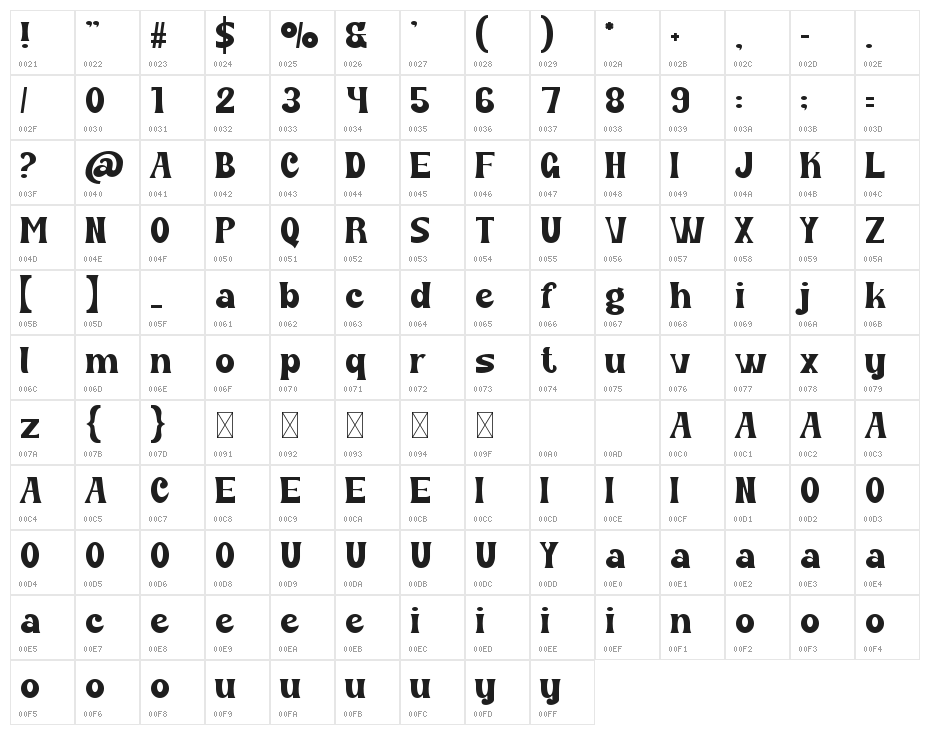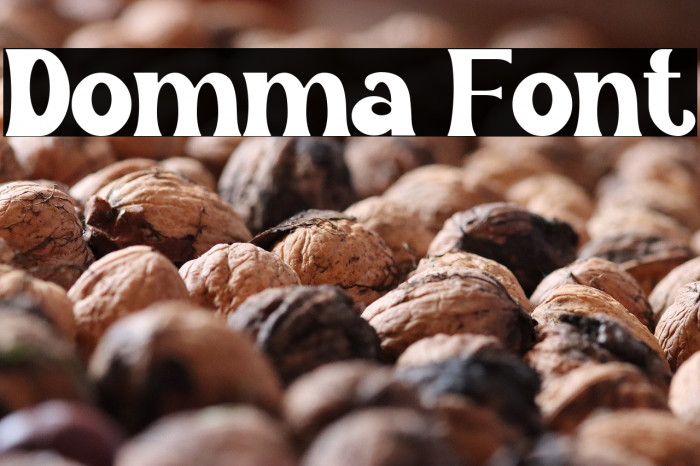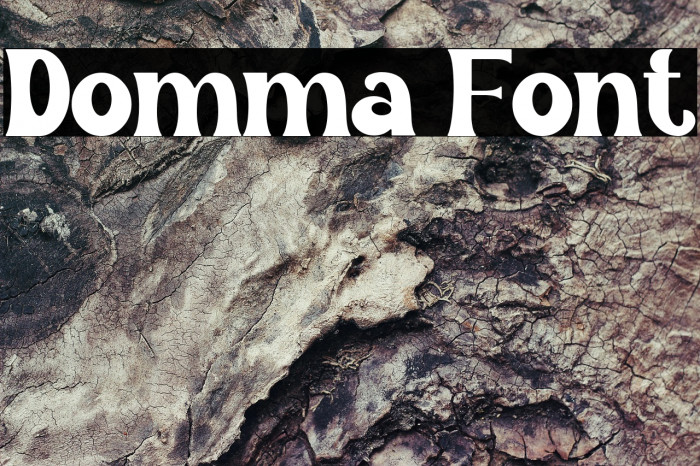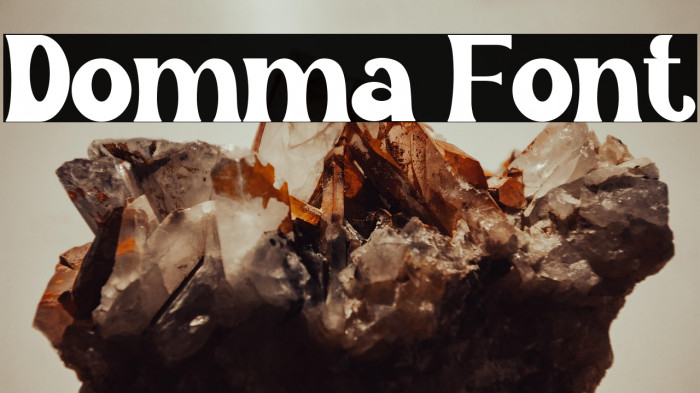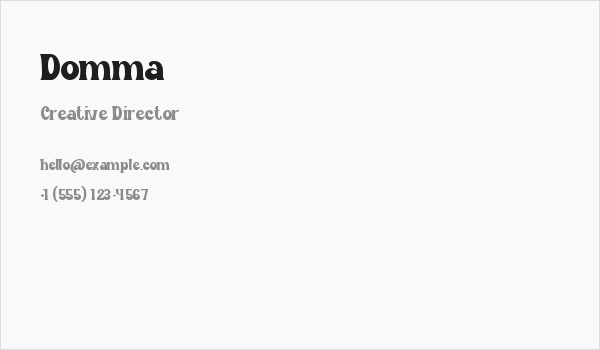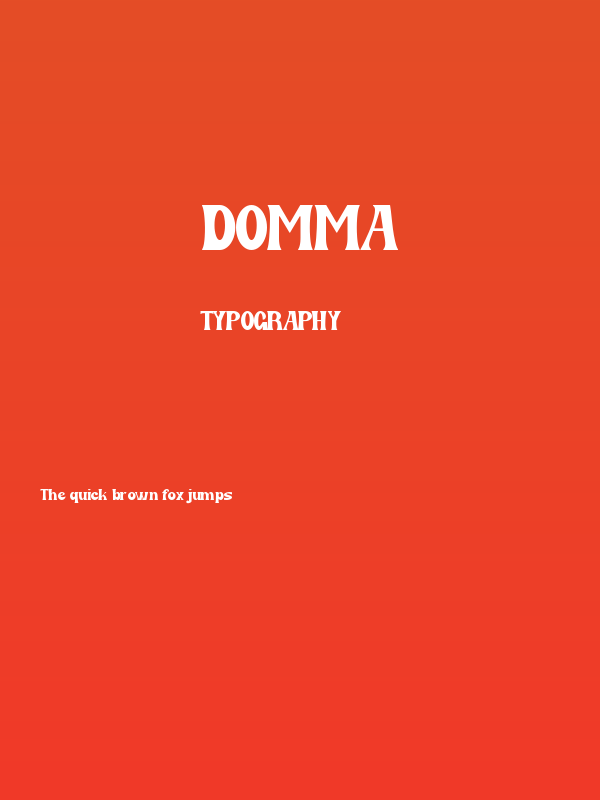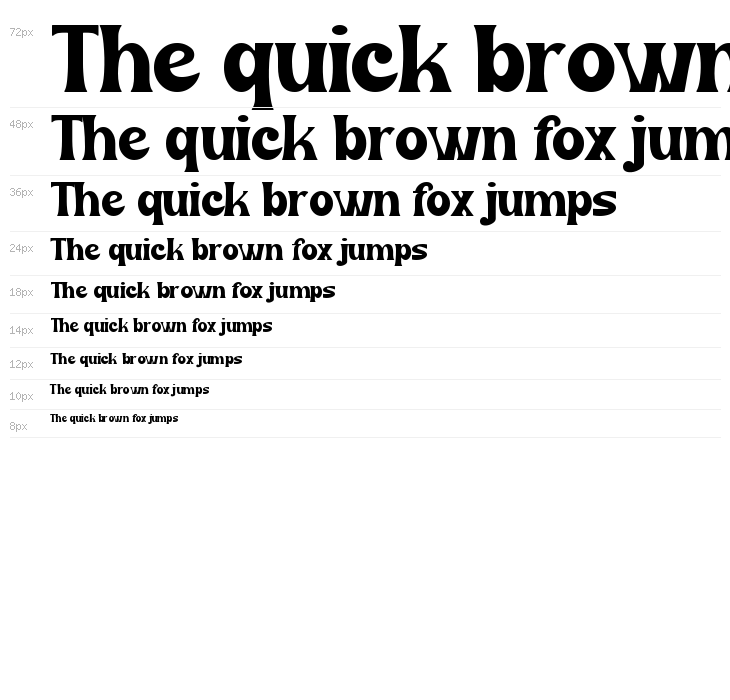
Domma Font
Domma Description
This font features a bold and playful design with a strong presence. The characters exhibit a unique blend of curves and sharp edges, giving it a whimsical yet structured appearance. The uppercase letters are particularly striking, with exaggerated serifs and a slightly condensed form. The lowercase letters maintain the playful theme with rounded forms and consistent stroke weight. Numbers and special characters are equally bold, ensuring readability and impact. This font is ideal for projects that require a fun and engaging aesthetic.
| Proposed Projects | Ideal for children's books, playful branding, posters, and creative advertising. |